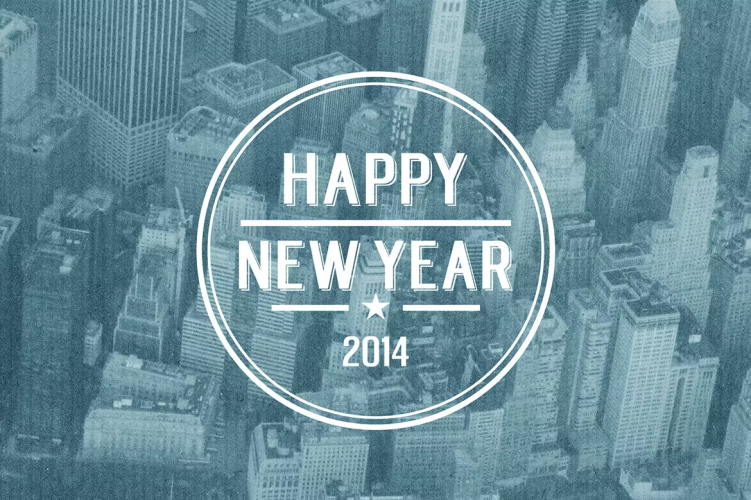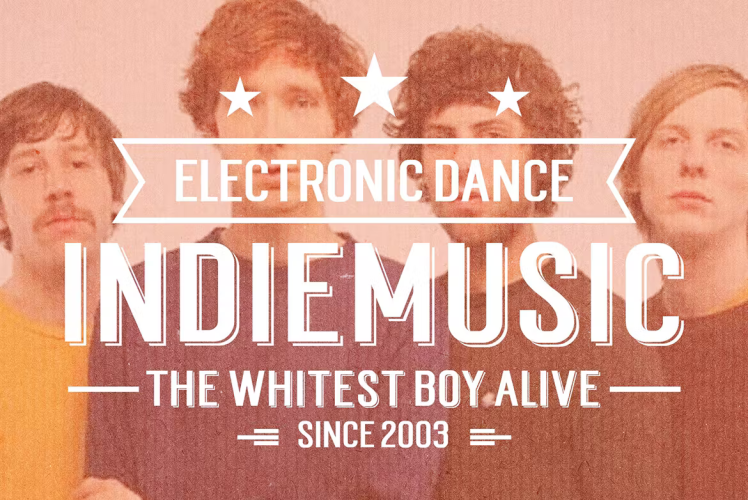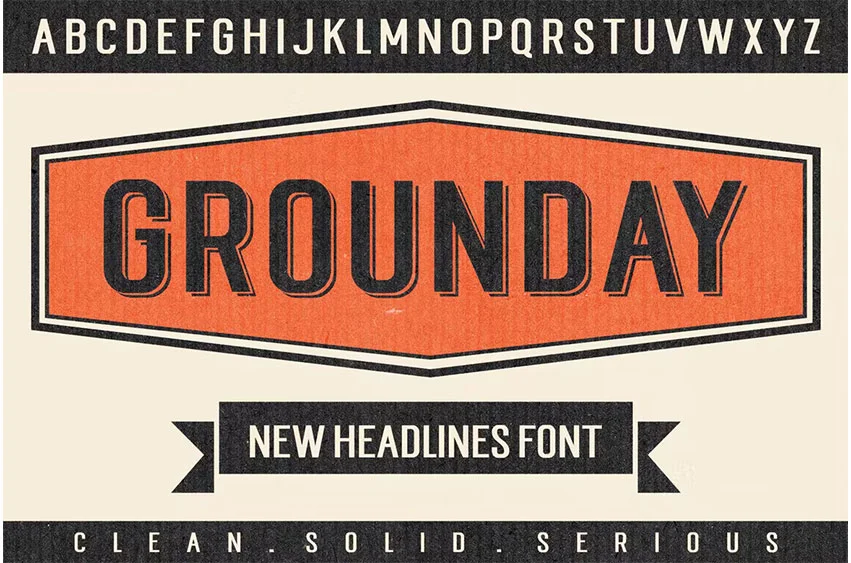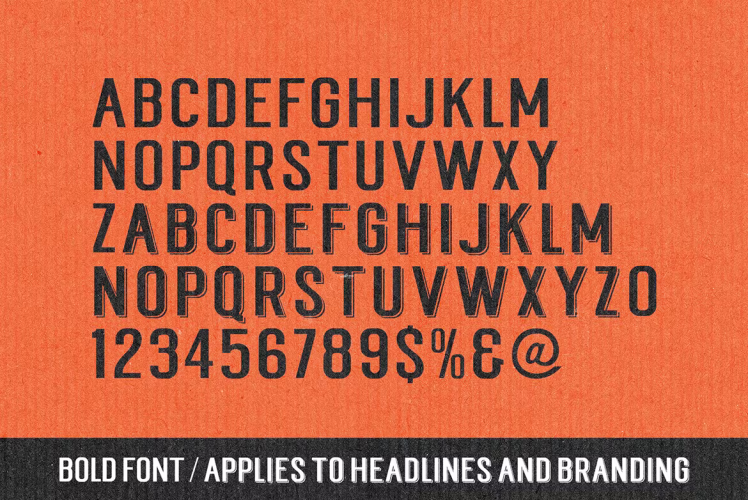
Grounday Font
Grounday Font is highly legible sans typeface, a bold compressed sans typeface, in uppercase characters only, Applies to headlines and branding. The solid version is accessed by typing with the uppercase keys, while the alternative shadowed version is accessed with the lowercase.
Where Grounday Font works best
Grounday Font stays legible at small sizes, which makes it a strong choice for navigation, buttons and dashboards in web design and app interfaces.
Clean sans serifs like Grounday Font are the default language of SaaS, fintech and product branding.
What is Grounday Font good for?
Grounday Font is a Sans Serif Fonts typeface tagged Bold, Branding, Headlines, Readable. It works well for headlines, logos, posters, social media graphics and branding projects that need a distinctive sans serif fonts look.